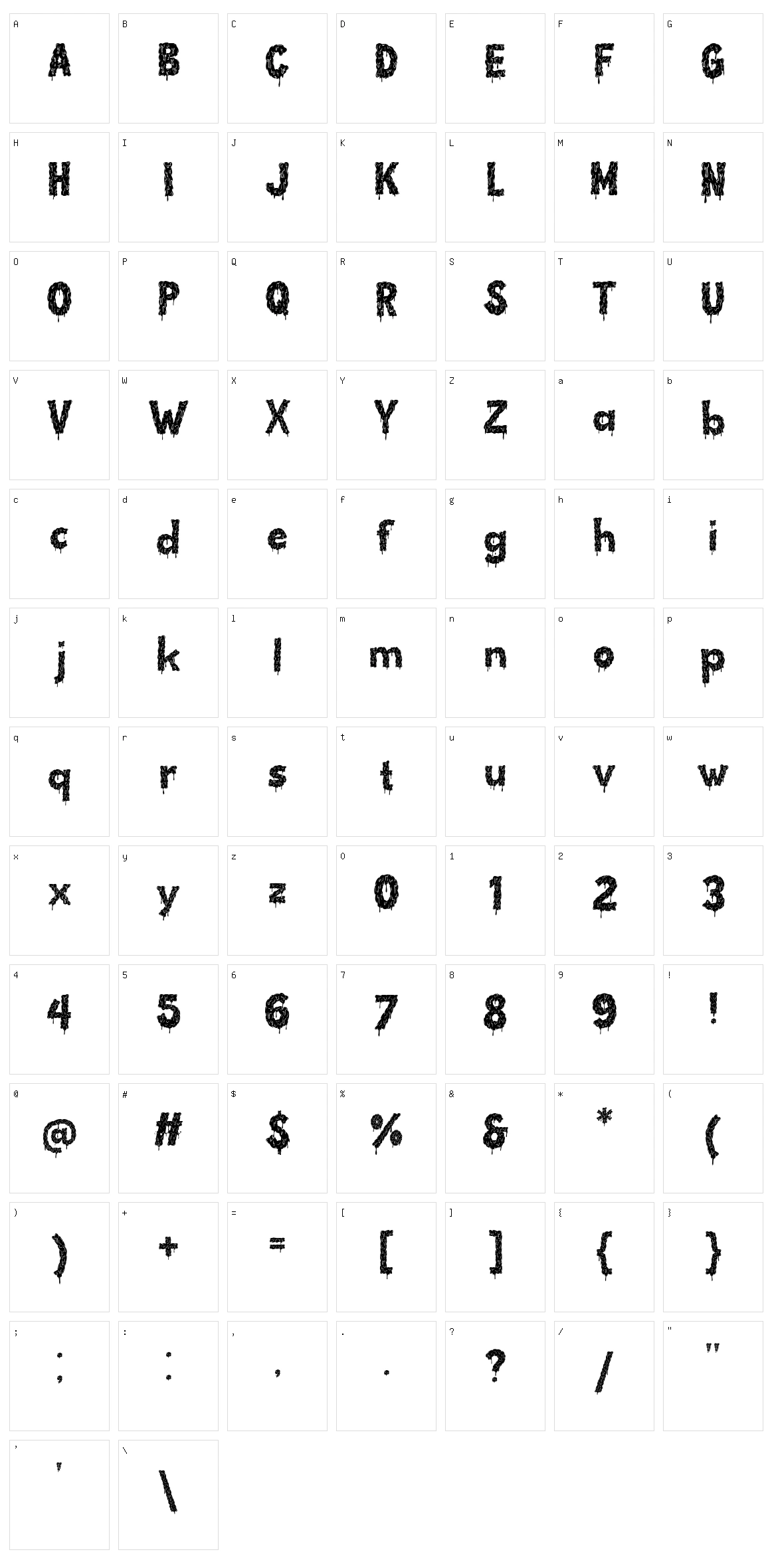
The free font Zombik is carefully designed by Alit Design, showcasing a thoughtful balance of creativity and usability and falls under the Halloween font style. When you download the ZIP file, it contains only 648.51 KB of font files, making it lightweight and quick to download. Please review the license details below to understand permitted usage and distribution rights. If license information is not available, we recommend using this font for personal projects only or contacting the author directly for commercial usage permissions.